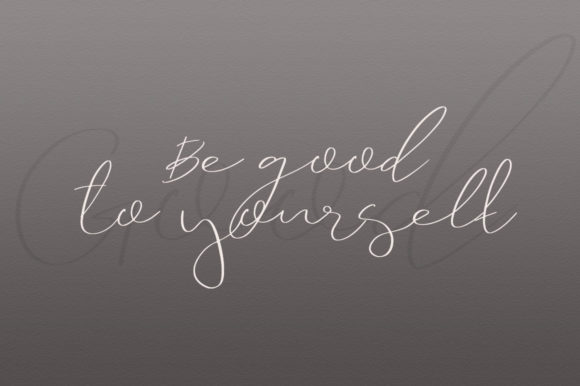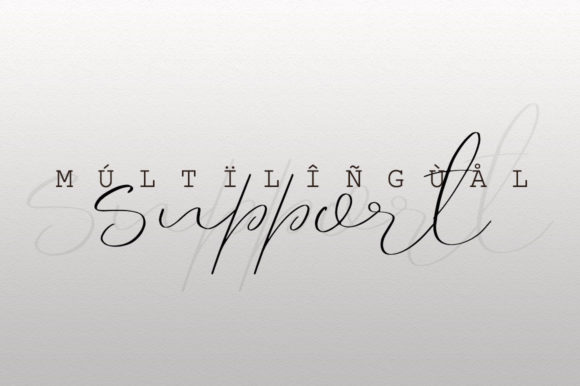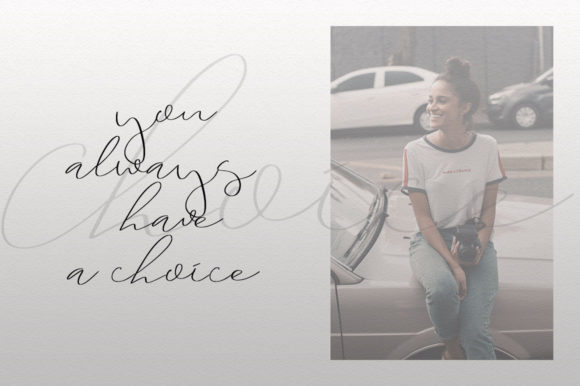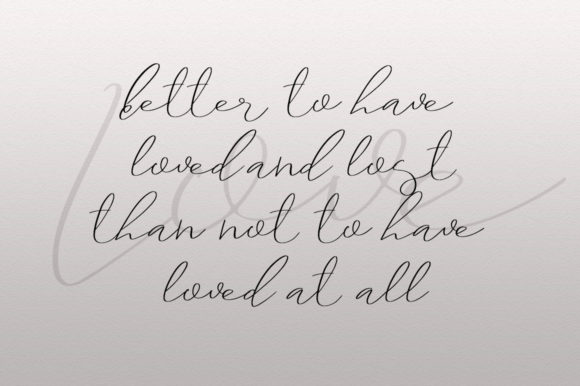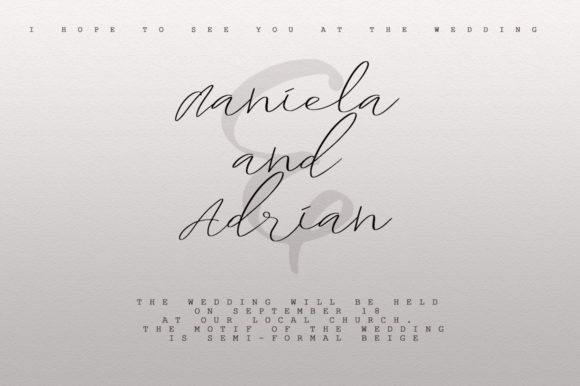
Introducing Daniela Font: The Perfect Handwritten Touch for Your Design Projects
Are you looking for a font that adds a romantic touch of authenticity to your design projects? Look no further than Daniela Font, a carefully crafted handwritten font that is sure to inspire. With its lovely feel and elegant charm, Daniela is the perfect choice for designers and crafters who want to add a personal touch to their work.
The Story Behind Daniela Font
Daniela Font is a unique and beautiful handwritten font that has been carefully crafted to bring a touch of romance and elegance to your design projects. Its creator, [designer name], drew inspiration from traditional handwriting and lettering techniques to create a font that is both authentic and stylish. With its flowing lines and delicate curves, Daniela Font is the perfect choice for projects that require a personal and human touch.
Key Features of Daniela Font
- Handwritten feel: Daniela Font has a natural, handwritten feel that adds a touch of warmth and personality to your design projects.
- Elegant charm: With its flowing lines and delicate curves, Daniela Font has an elegant charm that is sure to impress.
- Romantic touch: Daniela Font is perfect for projects that require a romantic touch, such as wedding invitations, love letters, and other special occasions.
- Authentic look: Daniela Font has an authentic look that makes it perfect for projects that require a personal and human touch.
- Versatile: Daniela Font can be used for a wide range of design projects, from digital graphics to print materials.
Uses for Daniela Font
Daniela Font is a versatile font that can be used for a wide range of design projects, including:
- Wedding invitations and stationery: Add a romantic touch to your wedding invitations and stationery with Daniela Font.
- Digital graphics: Use Daniela Font to create beautiful digital graphics, such as social media graphics, blog headers, and more.
- Print materials: Daniela Font is perfect for print materials, such as brochures, flyers, and business cards.
- Branding and packaging: Use Daniela Font to add a personal touch to your branding and packaging materials.
- Art and craft projects: Daniela Font is perfect for art and craft projects, such as handmade cards, gift tags, and more.
Tips for Using Daniela Font
Here are some tips for using Daniela Font in your design projects:
- Pair with other fonts: Daniela Font pairs well with other fonts, such as serif and sans-serif fonts.
- Experiment with colors: Try experimenting with different colors to find the perfect combination for your design project.
- Use for headings and titles: Daniela Font is perfect for headings and titles, as it adds a touch of elegance and sophistication.
- Use for body text: Daniela Font can also be used for body text, as it is easy to read and understand.
| Font Name | Daniela Font |
| Author | Katie Holland |